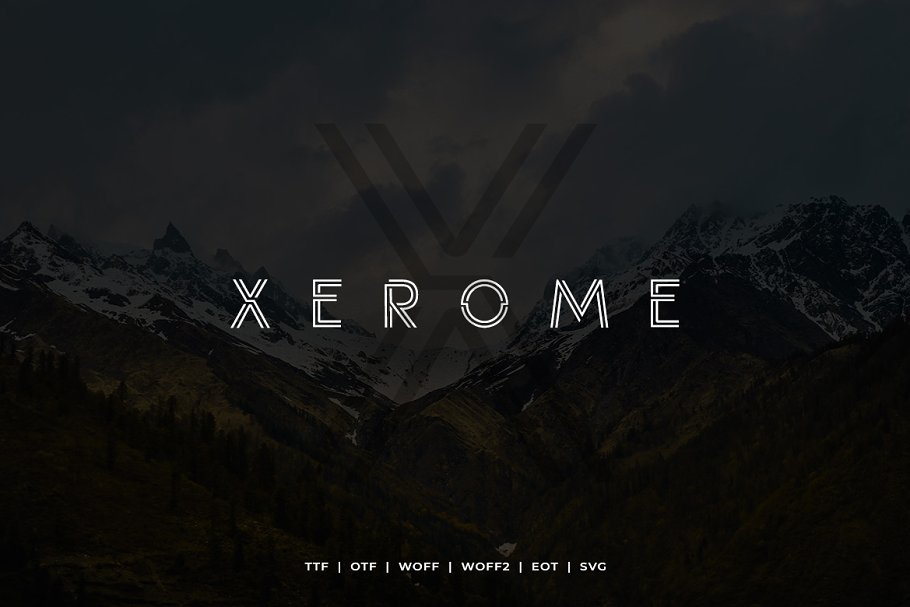
Xerome Font
This futuristic typeface is perfect for technology branding, sci-fi movie titles, gaming interfaces, tech startup logos, digital product packaging, cyberpunk designs, modern app development, and cutting-edge corporate presentations.
What makes this font exciting is its innovative geometric structure that seamlessly blends sharp angular elements with smooth curves, creating a distinctly modern aesthetic that feels both technological and approachable. The precise letterforms and unique character details evoke images of advanced digital systems and futuristic interfaces, while maintaining excellent readability across all media applications.
The Xerome Font family includes light, regular, bold, and black weights, along with condensed variations and technical symbols that provide comprehensive design solutions for technology-focused projects and modern brand applications.
The distinctive character of Xerome Font lies in its perfect balance between human readability and machine-like precision. Each letter has been meticulously crafted to reflect the intersection of human creativity and technological advancement, featuring clean lines and geometric proportions that suggest efficiency and progress. This thoughtful design approach makes it particularly suitable for fintech applications, aerospace companies, smart device interfaces, and digital transformation consultancies requiring typography that embodies both reliability and innovation.
Modern designers will find this font essential for projects demanding technological credibility and futuristic appeal. From cryptocurrency platforms to virtual reality experiences, from smart home applications to autonomous vehicle branding, Xerome Font delivers consistent high-tech aesthetics while maintaining practical functionality. The font's extensive OpenType features include technical ligatures, mathematical symbols, and coding-friendly characters, ensuring complete versatility for digital-first brands and technology companies operating at the forefront of innovation across all communication channels.